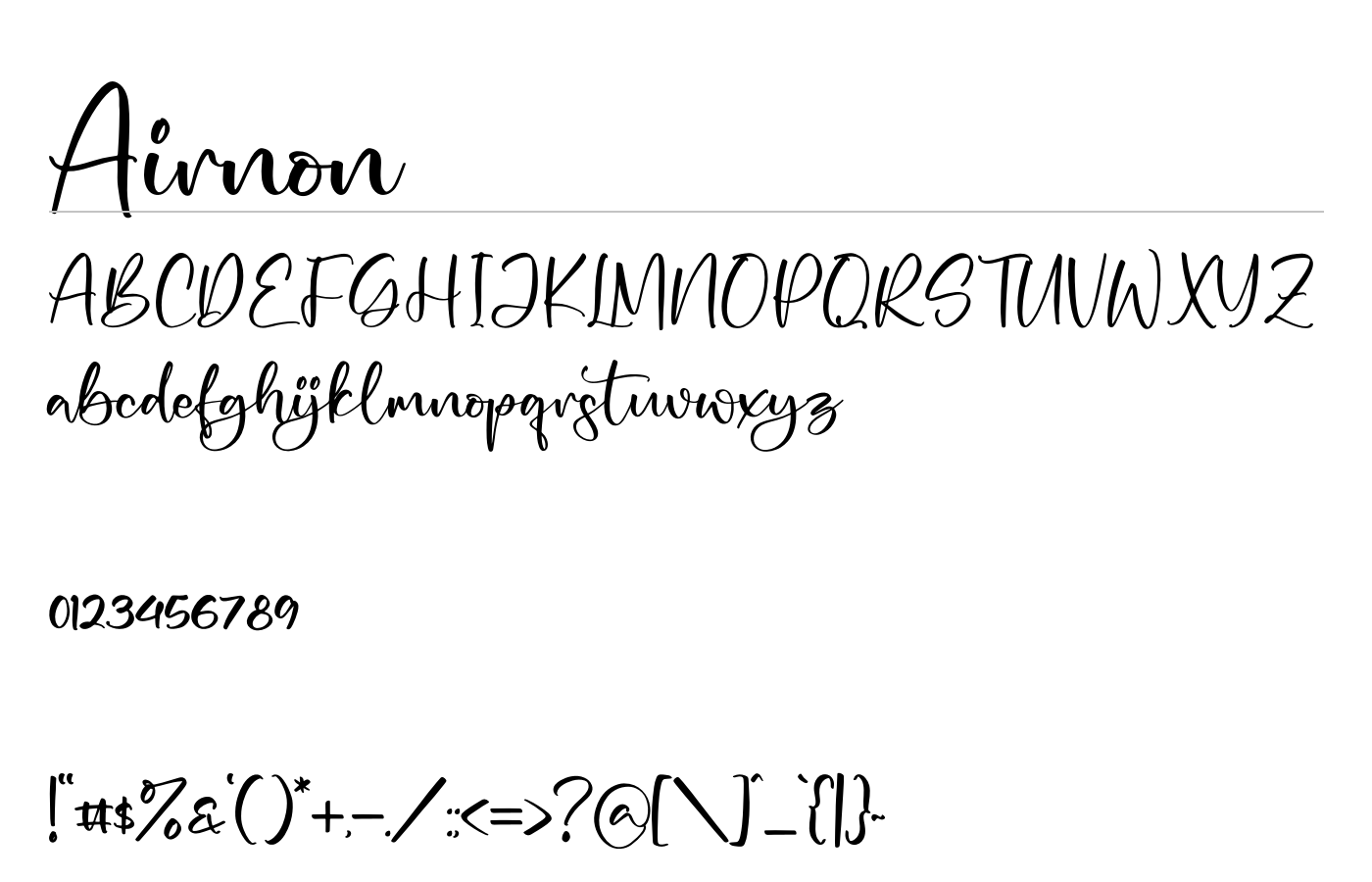
Airnon is a stylish script font with a casual, handwritten feel, featuring smooth, flowing lines and expressive curves. Its light to medium weight and natural, slightly irregular strokes give it a warm, personal touch, making it ideal for creative branding, invitations, and feminine or elegant design projects. This font works beautifully in logos, social media graphics, and headlines where a friendly yet sophisticated handwritten look is desired.
Airnon Font
About Airnon Font
| Font family | Airnon Font |
| Designer | Nanang Jamaludin |